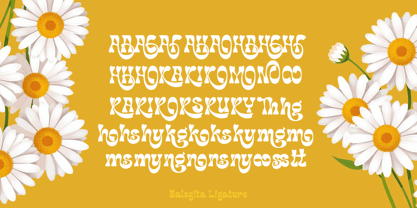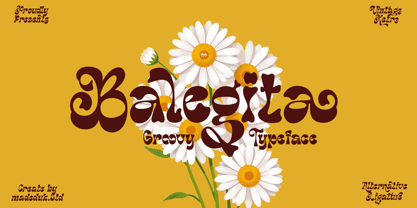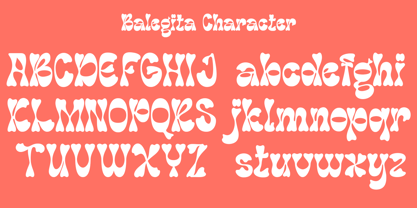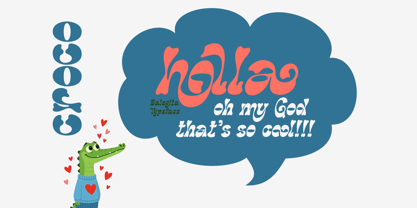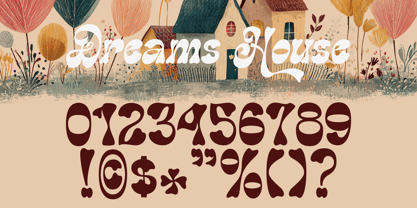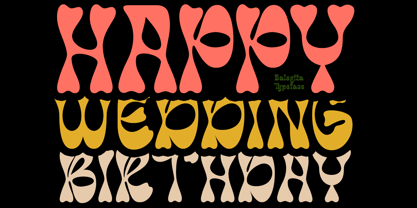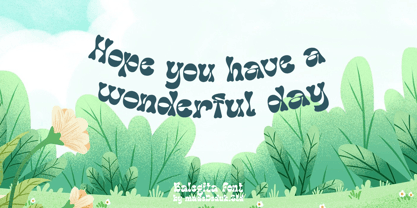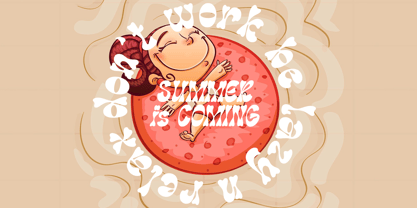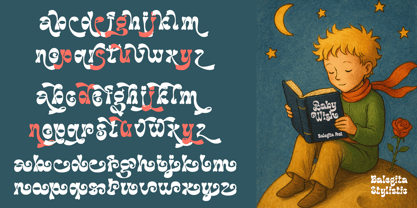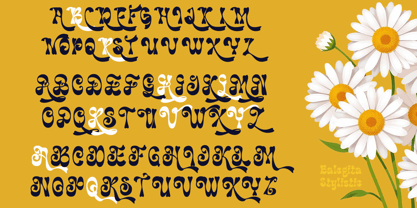
Balegita
by madeDeduk
The Balegita Font Family was designed by madededuk and published by madeDeduk. Balegita contains 2 styles and family package options. More about this family
Introducing Balegita, a Groovy Typeface that features a unique style characterized by bold, curved, and textured letterforms, imparting an artistic and experimental feel. This font provides numerous alternates and ligatures, enhancing its versatility, making it suitable for creative projects that aim to stand out as unique, bold, and distinctive. Perfect for various advertising purposes, it is ideal for both digital content and printed materials, ensuring your designs capture attention and convey a memorable message.